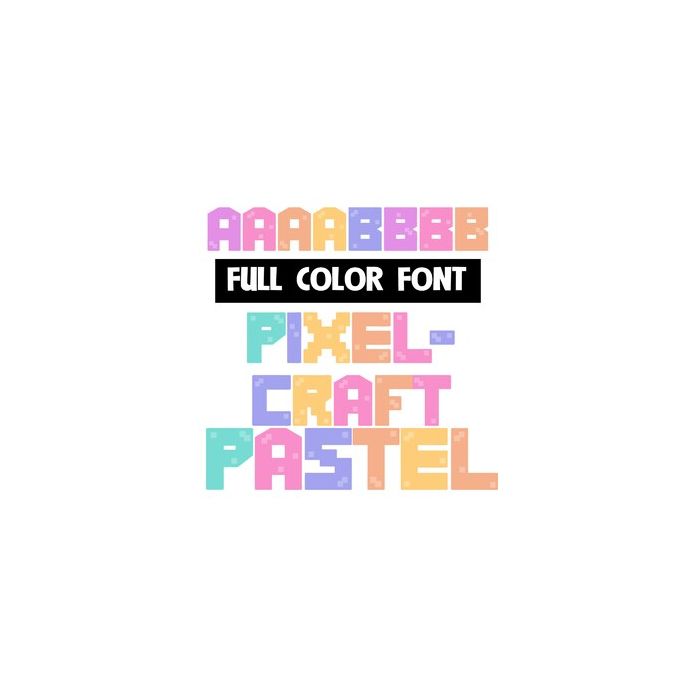
This full-color font features blocky, pixelized font is a spring color palette. There is an alt case w/ additional colors you can access through your system or Silhouette's glyph map.